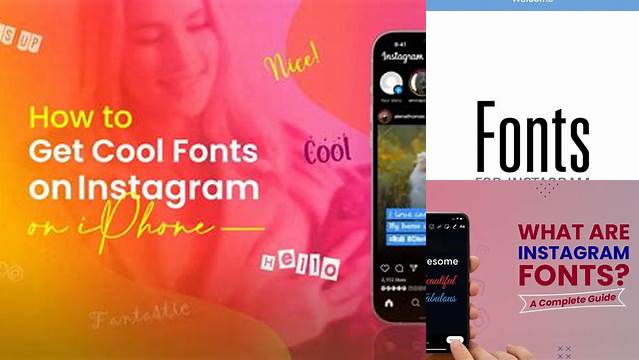
Cool Fonts For Instagram: How To Use Them
Hey guys! Ever scrolled through Instagram and seen a post with a font that just pops? You're probably thinking, "How did they do that?" Well, you've come to the right place! In this guide, we're diving deep into how to use fonts on Instagram posts to make your content stand out. We'll cover everything from the basics to some cool tricks, so buckle up and get ready to level up your Insta game.
1. Why Use Different Fonts on Instagram?
Let's kick things off by understanding why you'd even want to mess with the standard Instagram font. Think of it this way: fonts are like your outfit. You wouldn't wear the same thing every day, right? Using different fonts on Instagram posts helps you grab attention, express your brand's personality, and create a consistent visual identity. Imagine a sleek, modern font for a tech startup versus a playful, bubbly font for a kids' brand – see the difference? It's all about setting the right tone and making your content memorable. Plus, it just looks cool!
2. Understanding Instagram's Font Limitations
Okay, before we get too excited, let's talk about the elephant in the room: Instagram doesn't exactly let you swap fonts willy-nilly within the app itself. Bummer, right? But don't worry, there's a workaround! Instagram's interface and text editor has some limitations, but understanding this limitation is the first step. The key here is that Instagram uses a specific set of fonts for its interface and post editor. You can't directly change the font within the app's text input. So, while you're typing a caption or creating a Story, you're stuck with the default options provided by Instagram. However, this doesn't mean you're completely out of luck. There are clever ways to bypass these limitations and use different fonts on Instagram posts, which we'll explore in the following sections. Think of it as a fun challenge – we're about to hack the system (in a totally legit way, of course!).
3. Using Font Generator Tools for Instagram
This is where the magic happens! Font generator tools are your secret weapon for using different fonts on Instagram posts. These nifty websites and apps let you type in your text, then they generate that text in a bunch of different fonts. You can then copy and paste those fancy fonts directly into your Instagram captions, bios, and stories. It's like a font buffet! Some popular options include LingoJam, Cool Fonts, and FontGet, but there are tons out there. Just Google "Instagram font generator," and you'll find a treasure trove. These tools work by using special Unicode characters that look like different fonts, even though they're technically just symbols. Clever, huh? This means Instagram can display them without any issues. So go ahead, experiment and find the perfect font to express yourself!
4. Step-by-Step Guide: Generating and Using Instagram Fonts
Alright, let's walk through the process step-by-step so you can start using different fonts on Instagram posts like a pro. First, choose a font generator tool. Head to a website like LingoJam or open an app like Cool Fonts. Next, type your text into the input box. As you type, the tool will generate your text in various stylish fonts below. Scroll through the options and find one that tickles your fancy. Once you've found the perfect font, simply tap or click the "Copy" button next to it. Now, head over to Instagram and go to where you want to use the font – maybe it's your bio, a caption, or a Story. Paste the text into the text box. Voila! Your text will now appear in the fancy font you chose. It's that easy! Just remember to test it out on different devices to make sure it looks consistent for everyone.
5. Best Font Generator Websites for Instagram
Okay, so we've talked about font generators, but which ones are the best? Here are a few top contenders for using different fonts on Instagram posts. LingoJam is a classic – it's super simple to use and has a wide variety of fonts. Cool Fonts is another great option, especially if you're using a mobile device. It has a sleek interface and lots of font choices. FontGet is another solid pick, offering a mix of stylish and unique fonts. Instagram Fonts is a dedicated font generator with a clean, user-friendly design. Fancy Text Generator does exactly what it says on the tin – generates fancy text! The key is to experiment and find the tool that you vibe with the most. Each one has its own quirks and selection of fonts, so have fun exploring!
6. Top Font Generator Apps for Mobile
If you're a mobile-first kind of person (and let's be real, most of us are!), you'll want to know about the best font generator apps. Using different fonts on Instagram posts is even easier when you have an app on your phone. Cool Fonts (mentioned earlier) is a great app option, available on both iOS and Android. Fonts for Instagram is another popular choice, offering a clean interface and a good selection of fonts. Stylish Text is a powerful app that lets you not only generate fancy fonts but also create stylish text formats like underlines and strikethroughs. Fonty is a more advanced option that lets you create your own custom fonts! That's next-level stuff. Again, try out a few and see which one fits your style. The convenience of having these apps on your phone makes it super easy to spice up your Instagram content on the go.
7. How to Use Fonts in Instagram Bio
Your Instagram bio is prime real estate – it's one of the first things people see when they visit your profile. Using different fonts on Instagram posts, especially in your bio, can make a huge impact. It's a great way to showcase your personality and brand identity. To add a fancy font to your bio, simply use a font generator tool to create your desired text, copy it, and paste it into your bio field on Instagram. You can use different fonts for your name, your description, or both! Just be mindful of readability. Don't go overboard with super fancy fonts that are hard to decipher. A clean and stylish font can make your bio more eye-catching without sacrificing clarity. Remember, your bio is your digital handshake – make it a good one!
8. Adding Stylish Fonts to Instagram Captions
Captions are your chance to tell a story, share your thoughts, and connect with your audience. Using different fonts on Instagram posts, specifically in your captions, can add visual interest and emphasize key points. Imagine a quote in a beautiful script font or a call to action in a bold, attention-grabbing font. To use fancy fonts in your captions, just generate your text with a font tool, copy it, and paste it into your caption before you post. You can even mix and match fonts within the same caption to highlight different elements. For example, you might use a regular font for the main body of your caption and a fancy font for a hashtag or a special announcement. Play around with it and see what works best for your style and content.
9. Font Ideas for Instagram Stories
Instagram Stories are all about capturing attention quickly. Using different fonts on Instagram posts in your Stories is a fantastic way to make them pop. While Instagram does offer a few built-in font options for Stories, they can get a little stale. That's where font generators come in handy! You can use them to create text with unique fonts and then paste that text into your Stories. Think about using playful fonts for fun, casual content, and more elegant fonts for announcements or quotes. You can also use different fonts to create eye-catching text overlays on your photos and videos. Remember, Stories are ephemeral, so don't be afraid to experiment and try new things. Let your creativity flow and have fun with it!
10. Font Combinations That Work Well on Instagram
Choosing the right font is important, but knowing how to combine fonts is where the real magic happens. Using different fonts on Instagram posts effectively means creating visual harmony. A general rule of thumb is to stick to two or three fonts max. Too many fonts can look cluttered and confusing. Pair a display font (a fancy, decorative font) with a simpler, more readable font for the body of your text. For example, you might use a script font for a heading and a sans-serif font for the caption. Contrast is key! Choose fonts that complement each other but also have enough visual difference to create interest. Some classic combinations include pairing a serif font like Times New Roman with a sans-serif font like Arial, or a script font like Brush Script with a geometric font like Montserrat. Don't be afraid to experiment, but always prioritize readability.
11. Matching Fonts to Your Instagram Aesthetic
Your Instagram feed is a visual representation of your brand or personal style. Using different fonts on Instagram posts should align with your overall aesthetic. Think about the mood and message you want to convey. If you have a minimalist, modern aesthetic, you'll probably want to stick to clean, sans-serif fonts. If your style is more playful and whimsical, you might opt for a script or handwritten font. If you're going for a vintage vibe, consider using a serif font with a classic feel. Consistency is key! Choose a font or a font pairing and use it consistently across your profile and content. This will help create a cohesive and recognizable brand identity. Your fonts should be an extension of your visual style, not a distraction from it.
12. How Fonts Can Enhance Your Brand Identity
Fonts are a powerful tool for branding. Using different fonts on Instagram posts can help you create a consistent visual identity that resonates with your audience. Think about some of the biggest brands – they all have distinct fonts that are instantly recognizable. Your fonts should reflect your brand's personality and values. Are you a serious and professional brand? Opt for clean, classic fonts. Are you a fun and quirky brand? Choose playful and unique fonts. Your font choices should be consistent across all your marketing materials, including your Instagram profile, website, and other social media channels. This will help you build brand recognition and create a strong brand image. Think of your fonts as part of your brand's visual voice – make sure they're saying the right thing!
13. Readability: The Most Important Font Factor
Okay, we've talked a lot about fancy fonts and aesthetics, but let's not forget the most crucial factor: readability. Using different fonts on Instagram posts is cool, but if people can't read your text, what's the point? Always prioritize clarity over style. Choose fonts that are easy to read on small screens. Avoid fonts that are too thin, too ornate, or too condensed. Consider the contrast between your text and the background. Light text on a dark background is generally easier to read than dark text on a light background. Test your fonts on different devices to make sure they look good across the board. Your message is important, so make sure your fonts aren't getting in the way.
14. Font Sizes for Instagram Posts and Stories
Font size is another important factor in readability. Using different fonts on Instagram posts requires you to consider not just the font style, but also the size at which it will be displayed. A beautiful font can become illegible if it's too small, and a simple font can be overwhelming if it's too large. For Instagram posts, keep your font size consistent and large enough to be easily read on various screen sizes. In captions, you might want to use a slightly larger font for headings or key phrases to draw attention. For Stories, you have more flexibility, but the same principles apply. Consider the overall layout of your Story and adjust the font size accordingly. Avoid using excessively small fonts, especially in Stories, as they can be difficult to read on the go. Remember, clarity is key, so ensure your font size complements your font style and content.
15. Using Emojis to Complement Your Fonts
Emojis are a fun and expressive way to add personality to your Instagram content. Using different fonts on Instagram posts can be even more effective when combined with emojis. Emojis can help break up text, emphasize key points, and add a visual element to your captions and Stories. Think of them as little visual cues that can enhance your message. When using emojis with your chosen fonts, consider the overall tone and style. Playful fonts might pair well with lighthearted emojis, while more formal fonts might benefit from simpler, more subtle emoji usage. Don't overdo it! Too many emojis can be distracting and make your content look cluttered. Use them strategically to complement your fonts and enhance your message, not to overwhelm it. A well-placed emoji can add a touch of flair and personality to your text, making your content more engaging and memorable.
16. How to Add Font Styles Like Bold and Italics
Adding font styles like bold and italics can help you emphasize key words or phrases in your Instagram captions and bio. While Instagram's native text editor has some limitations, there are ways to achieve these styles even when using different fonts on Instagram posts. Font generator tools often include options to generate text in bold, italic, or even underlined styles. Simply type your text, choose the desired style, and copy-paste it into Instagram. These styles can be particularly useful for highlighting calls to action, important information, or quotes. Using bold text can draw the reader's eye to crucial elements, while italics can add a touch of elegance or emphasis. However, like with fancy fonts, use these styles sparingly. Overusing bold or italics can make your text look cluttered and less readable. Employ them strategically to enhance your message and create a visual hierarchy within your text.
17. Creating Text Graphics with Custom Fonts
Want to take your font game to the next level? Try creating text graphics with custom fonts. This involves designing images with your chosen fonts using graphic design tools and then posting those images on Instagram. This technique gives you complete control over the fonts, sizes, and layout of your text, making it perfect for creating eye-catching quotes, announcements, or promotional graphics. Using different fonts on Instagram posts in this way allows for a level of creativity that goes beyond simple text captions. Tools like Canva, Adobe Spark, and Over are great options for creating these graphics. They offer templates and design elements that you can customize with your fonts and colors. When creating text graphics, remember to maintain consistency with your brand's visual identity. Use your brand colors and fonts to create a cohesive look and feel. Text graphics can be a powerful way to make your Instagram content visually appealing and engaging.
18. Font Pairing: Serif vs. Sans-Serif
When using different fonts on Instagram posts, understanding the basics of font pairing is essential. One of the most fundamental pairings is serif versus sans-serif fonts. Serif fonts have small decorative strokes at the ends of the letters, giving them a classic and formal look. Sans-serif fonts, on the other hand, are cleaner and more modern, lacking those strokes. A classic and effective pairing is to use a serif font for headings and a sans-serif font for the body of your text, or vice versa. This creates a visual contrast that is pleasing to the eye and improves readability. For example, you might pair a serif font like Times New Roman with a sans-serif font like Helvetica. The key is to choose fonts that complement each other without being too similar. The contrast between serif and sans-serif fonts adds visual interest and can help create a balanced and professional look for your Instagram content.
19. Using Handwritten and Script Fonts on Instagram
Handwritten and script fonts can add a personal and artistic touch to your Instagram content. Using different fonts on Instagram posts that mimic handwriting or calligraphy can make your posts feel more intimate and engaging. These fonts are great for quotes, invitations, or any content where you want to convey a sense of warmth and creativity. However, it's important to use them sparingly and with consideration. Handwritten and script fonts can sometimes be less readable than simpler fonts, especially in large blocks of text. It's best to use them for short phrases, headings, or accent text. Pair them with a cleaner, more legible font for the main body of your content. Also, ensure that the style of the handwritten or script font aligns with your overall brand aesthetic. A playful, casual script might be perfect for a lifestyle blogger, while a more elegant calligraphy style might suit a wedding photographer. When used effectively, handwritten and script fonts can add a unique and personal touch to your Instagram presence.
20. How to Maintain Font Consistency Across Your Posts
Consistency is key when using different fonts on Instagram posts. Maintaining a consistent font style across your profile helps create a cohesive brand identity and makes your content easily recognizable. Choose a font or font pairing that aligns with your brand's personality and aesthetic, and stick to it. This doesn't mean you can never experiment, but having a consistent base font or set of fonts will create a professional and polished look. Use the same fonts for your bio, captions, and Stories to maintain a unified visual presence. If you're creating text graphics, use your chosen fonts consistently in those images as well. Consistency in font choice helps build brand recognition and makes your content more memorable. Think of your font as part of your brand's visual signature – using it consistently will reinforce your brand identity and make your Instagram profile stand out.
21. Font Psychology: Choosing Fonts That Convey the Right Message
Fonts, like colors, have a psychology associated with them. Using different fonts on Instagram posts can subtly influence how your message is perceived. Choosing fonts that align with the emotions and messages you want to convey is crucial for effective communication. Serif fonts, with their traditional look, often convey stability, trustworthiness, and professionalism. Sans-serif fonts, on the other hand, feel modern, clean, and approachable. Script fonts can evoke elegance, creativity, and femininity, while bold, sans-serif fonts might convey confidence and strength. Consider the mood you want to create and the message you want to send when selecting fonts. For example, a financial advisor might choose a classic serif font to project trustworthiness, while a fashion blogger might opt for a stylish script font to convey creativity and flair. By understanding the psychology of fonts, you can make informed choices that enhance your message and resonate with your audience.
22. The Impact of Fonts on Engagement Rates
Can using different fonts on Instagram posts actually impact your engagement rates? The answer is yes, potentially! While font choice isn't the only factor that influences engagement, it can play a role in how your content is perceived and how likely people are to interact with it. Eye-catching fonts can grab attention and make your posts stand out in a crowded feed. Clear and legible fonts make your captions easier to read, encouraging people to spend more time engaging with your content. Fonts that align with your brand's personality can help you connect with your audience on a deeper level. However, it's important to strike a balance. Overly fancy or difficult-to-read fonts can deter engagement. Choose fonts that are both visually appealing and easy to read, and that align with your brand identity. Experiment with different font styles and combinations to see what resonates best with your audience. Monitoring your engagement rates and analyzing what works well can help you fine-tune your font choices for maximum impact.
23. Testing Different Fonts to See What Works Best
The best way to know what fonts work best for your Instagram content is to test them! Using different fonts on Instagram posts involves some experimentation to find the perfect fit for your brand and audience. Try out different font styles, sizes, and combinations in your captions, bio, and Stories. Monitor your engagement rates to see which fonts resonate most with your audience. Pay attention to comments and feedback – are people finding your fonts easy to read? Do they align with your brand's personality? A/B testing can be a useful strategy. Try posting similar content with different fonts and see which post performs better. Remember, what works for one brand might not work for another. Your font choices should be tailored to your specific audience and brand identity. Don't be afraid to experiment and iterate until you find the fonts that help you create engaging and impactful Instagram content.
24. Avoiding Font Overload: Less is More
When it comes to fonts, sometimes less is more. Using different fonts on Instagram posts can be fun, but it's easy to go overboard. Avoid using too many different fonts in a single post or across your profile. A cluttered font palette can make your content look confusing and unprofessional. Stick to a maximum of two or three fonts, and use them consistently. Choose fonts that complement each other and create a visual hierarchy. Use one font for headings, another for body text, and perhaps a third for accent text. Simplicity and clarity are key. A clean and readable font is always preferable to a fancy but illegible one. Focus on conveying your message effectively, and let your content speak for itself. A well-chosen, simple font can be just as impactful as a more elaborate one, without overwhelming your audience.
25. Copyright and Licensing for Fonts Used on Instagram
Before you get too carried away with using different fonts on Instagram posts, it's important to understand the basics of copyright and licensing. Fonts, like other creative works, are protected by copyright. This means that you can't simply download any font you find online and use it for commercial purposes without permission. Many fonts are free for personal use but require a license for commercial use. Commercial use includes anything related to your business or brand, including your Instagram posts if you're using them for marketing or promotion. There are many websites where you can purchase font licenses, such as MyFonts, Fontspring, and Creative Market. Some fonts are also available under open-source licenses, which allow for commercial use with certain restrictions. Always check the licensing terms before using a font, and make sure you comply with the requirements. Using fonts without the proper license can lead to legal issues, so it's best to be cautious and do your research.
26. Common Font Mistakes to Avoid on Instagram
To ensure your fonts enhance rather than detract from your Instagram content, it's helpful to be aware of common font mistakes. Using different fonts on Instagram posts effectively means avoiding these pitfalls. One frequent error is using fonts that are too difficult to read. Fancy script fonts or highly stylized fonts can look beautiful, but if they're illegible, they defeat the purpose of communication. Another mistake is using too many different fonts in one post or across your profile, creating a cluttered and inconsistent look. Neglecting font size is another common issue. Fonts that are too small can be hard to read on mobile devices, while fonts that are too large can be overwhelming. Inconsistent font usage is also a problem. Sticking to a consistent font palette helps build brand recognition. Finally, overlooking copyright issues can lead to legal trouble. Always ensure you have the proper license to use a font for commercial purposes. By avoiding these common font mistakes, you can ensure your fonts enhance your Instagram content and contribute to a polished and professional brand image.
27. The Future of Fonts on Social Media Platforms
The world of fonts on social media is constantly evolving. As platforms like Instagram continue to develop, we can expect to see new features and trends emerge. Using different fonts on Instagram posts is already a popular way to add personality and style to content, and this trend is likely to continue. We might see Instagram introducing more font options within the app itself, making it easier for users to customize their text. There's also potential for more integration with font libraries and design tools, allowing users to seamlessly incorporate custom fonts into their content. AI and machine learning could play a role in font recommendations, suggesting fonts that align with a user's brand or content style. Accessibility will also be a key consideration, with platforms likely to prioritize fonts that are easy to read for users with visual impairments. The future of fonts on social media is dynamic and exciting, and staying up-to-date with the latest trends and technologies will be crucial for content creators and brands.
28. Advanced Tips for Instagram Font Customization
Ready to take your font game to the next level? There are several advanced tips you can use to customize your fonts on Instagram and make your content truly unique. Using different fonts on Instagram posts can be elevated by techniques like creating your own custom font graphics. Use graphic design software to design text images with your brand fonts, adding effects like shadows, gradients, or outlines. You can also experiment with text layouts, creating visually interesting arrangements of words and phrases. Another tip is to use different font styles to create a visual hierarchy within your text. Use bold or italics to emphasize key words or phrases, or change the font size to create headings and subheadings. Consider using different fonts for different types of content. For example, you might use a playful font for Stories and a more formal font for feed posts. Finally, pay attention to the overall aesthetic of your Instagram profile. Your fonts should align with your brand's visual identity and contribute to a cohesive look and feel. By using these advanced tips, you can create a sophisticated and visually appealing Instagram presence.
29. How to Use Fonts to Tell a Story on Instagram
Fonts are a powerful storytelling tool. Using different fonts on Instagram posts can help you convey emotions, set the mood, and bring your stories to life. Think of fonts as a visual language that complements your words and images. A playful script font might be perfect for a lighthearted story, while a bold sans-serif font could add drama to a suspenseful narrative. Consider the message you want to convey and choose fonts that support that message. You can use different fonts to highlight key moments in your story, create a sense of anticipation, or emphasize the emotional tone. For example, you might use a handwritten font for a personal anecdote or a classic serif font for a historical story. Remember to maintain consistency and readability. Choose a font palette that works well together, and ensure your fonts are easy to read on small screens. By using fonts strategically, you can add depth and dimension to your Instagram stories and create a more engaging experience for your audience.
30. Staying Updated with the Latest Font Trends
The world of fonts is constantly evolving, with new styles and trends emerging all the time. To keep your Instagram content fresh and engaging, it's important to stay updated with the latest font trends. Using different fonts on Instagram posts in a way that feels current can help you stand out and capture your audience's attention. Follow design blogs, social media accounts, and font foundries to stay informed about new font releases and trending styles. Pay attention to how other brands and influencers are using fonts in their content. Experiment with different font combinations and styles to see what resonates with your audience. Consider the overall aesthetic of your brand and choose fonts that align with your visual identity. Remember that font trends come and go, so it's important to choose fonts that are not only trendy but also timeless and readable. A classic, well-chosen font can be just as impactful as a trendy one, and will help you maintain a consistent and professional brand image. Staying updated with font trends allows you to keep your Instagram content visually appealing and engaging, while remaining true to your brand's unique style.